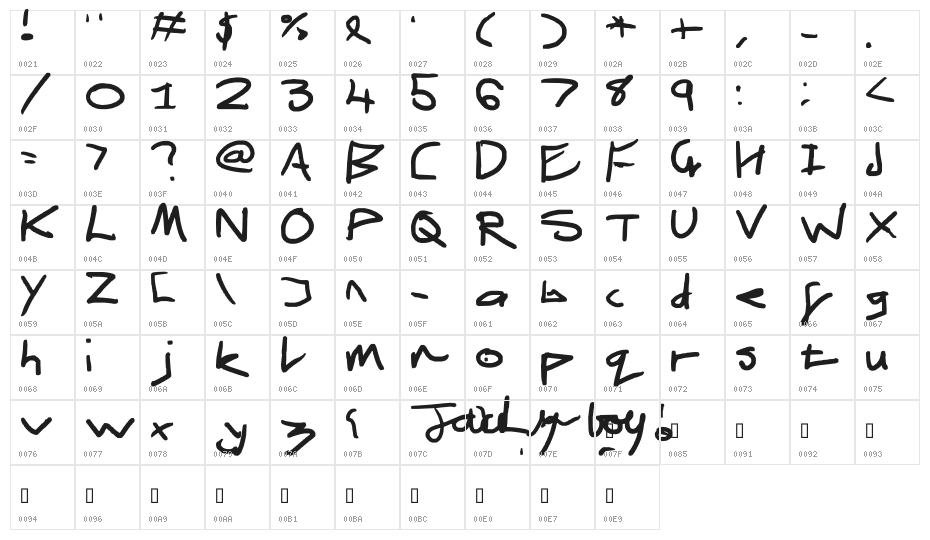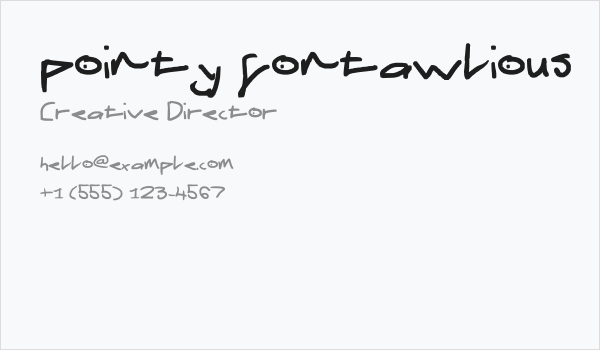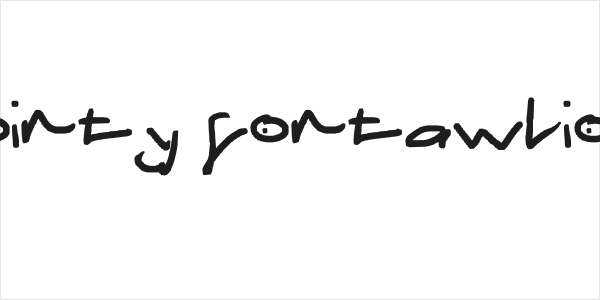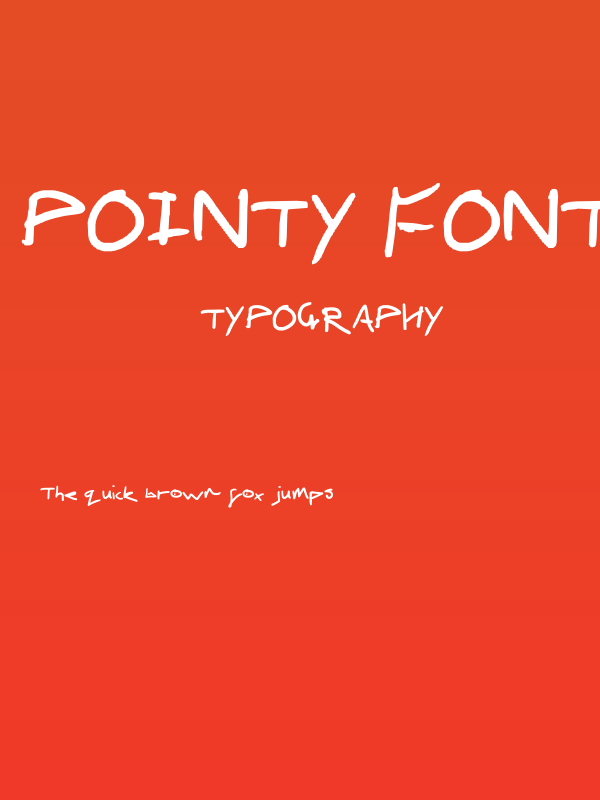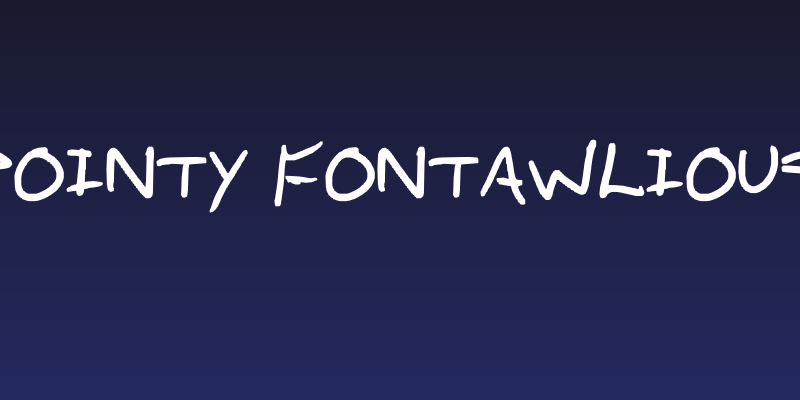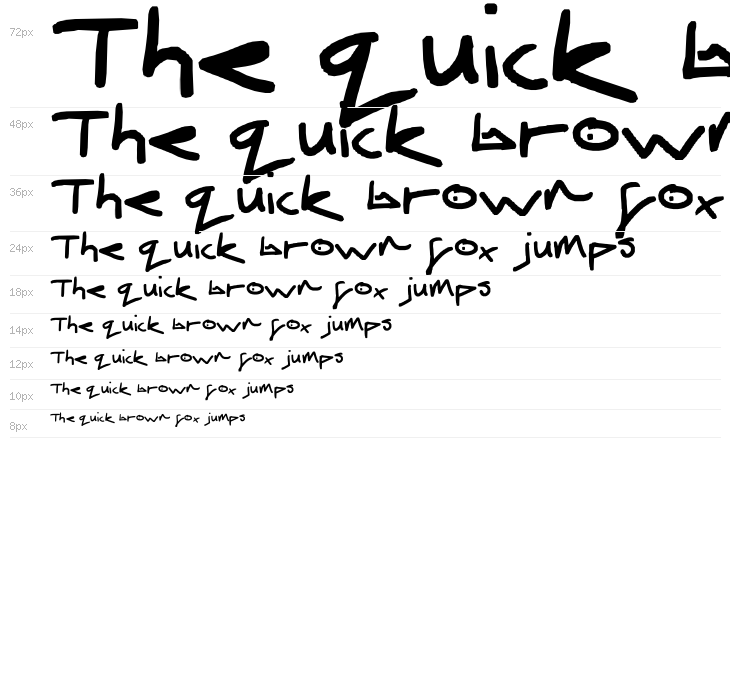
pointy fontawlious Font
pointy fontawlious Description
This font features a bold, handwritten style with a playful and energetic appearance. The characters are slightly slanted, giving them a dynamic feel. The strokes are uneven, with some letters having exaggerated curves and angles, adding to the informal and casual vibe. The uppercase letters are distinct and easily recognizable, while the lowercase letters maintain a consistent flow. Numbers and special characters follow the same style, ensuring uniformity across all glyphs. This font is ideal for projects that require a personal touch or a creative flair.